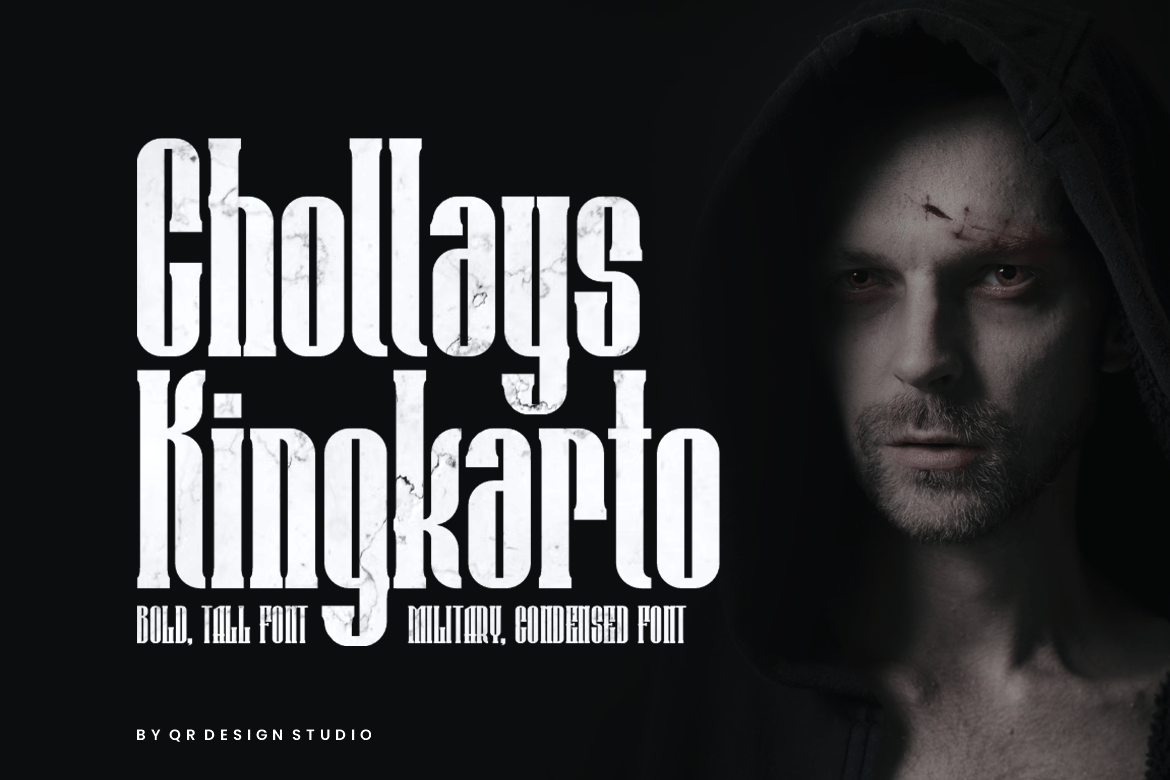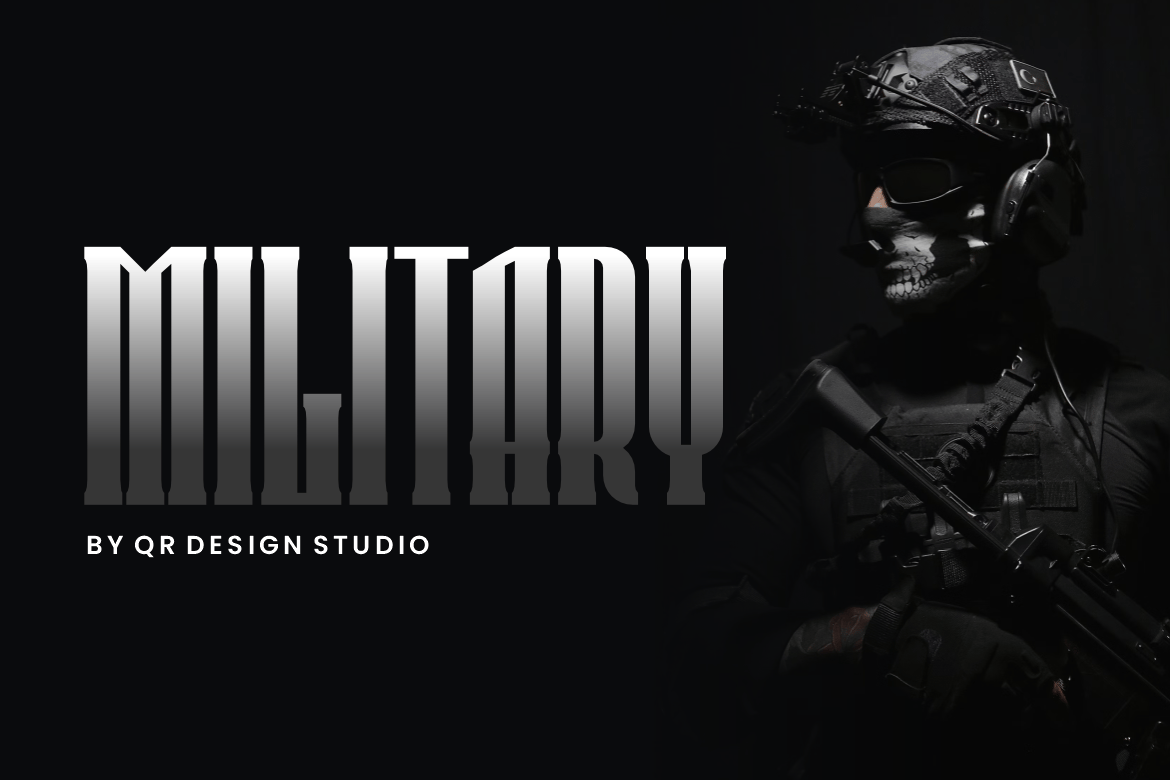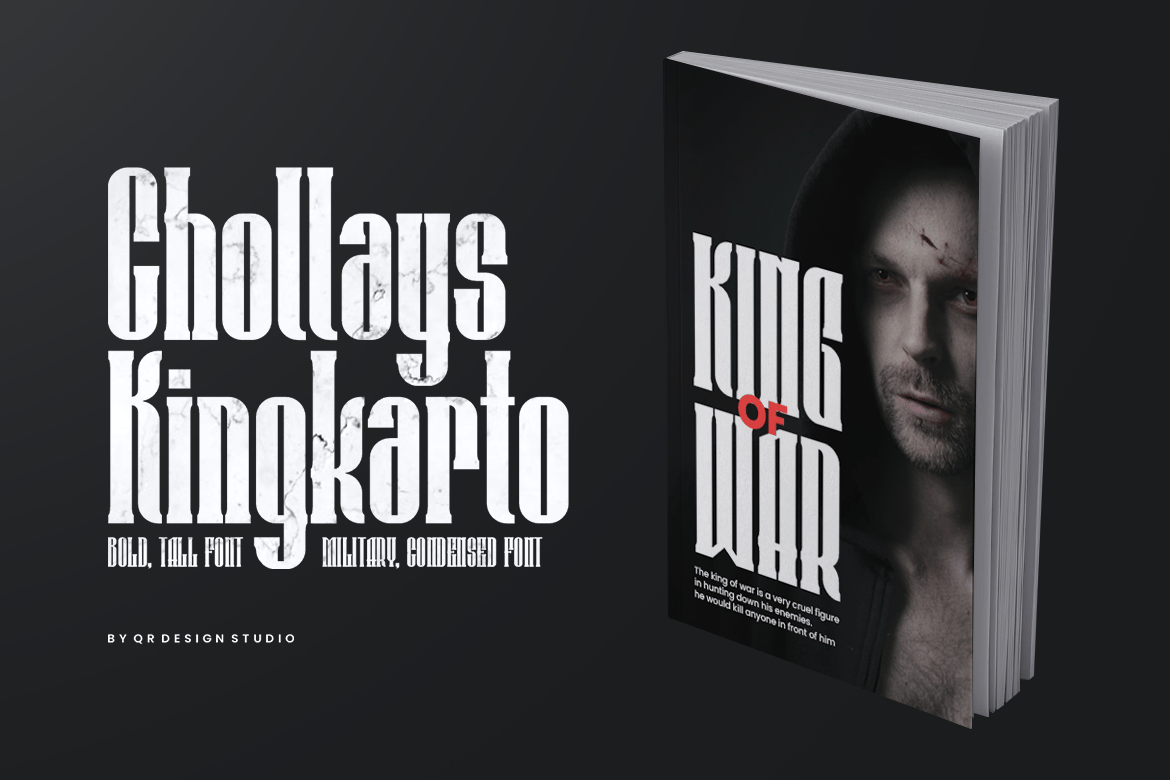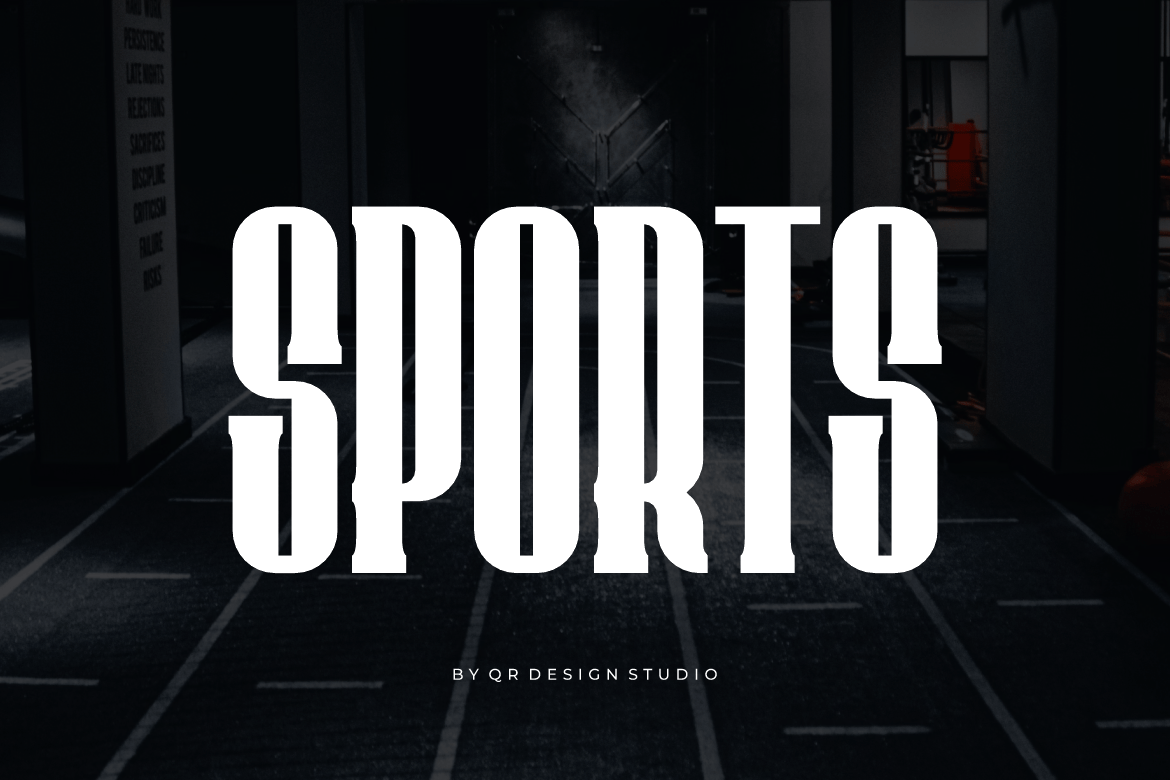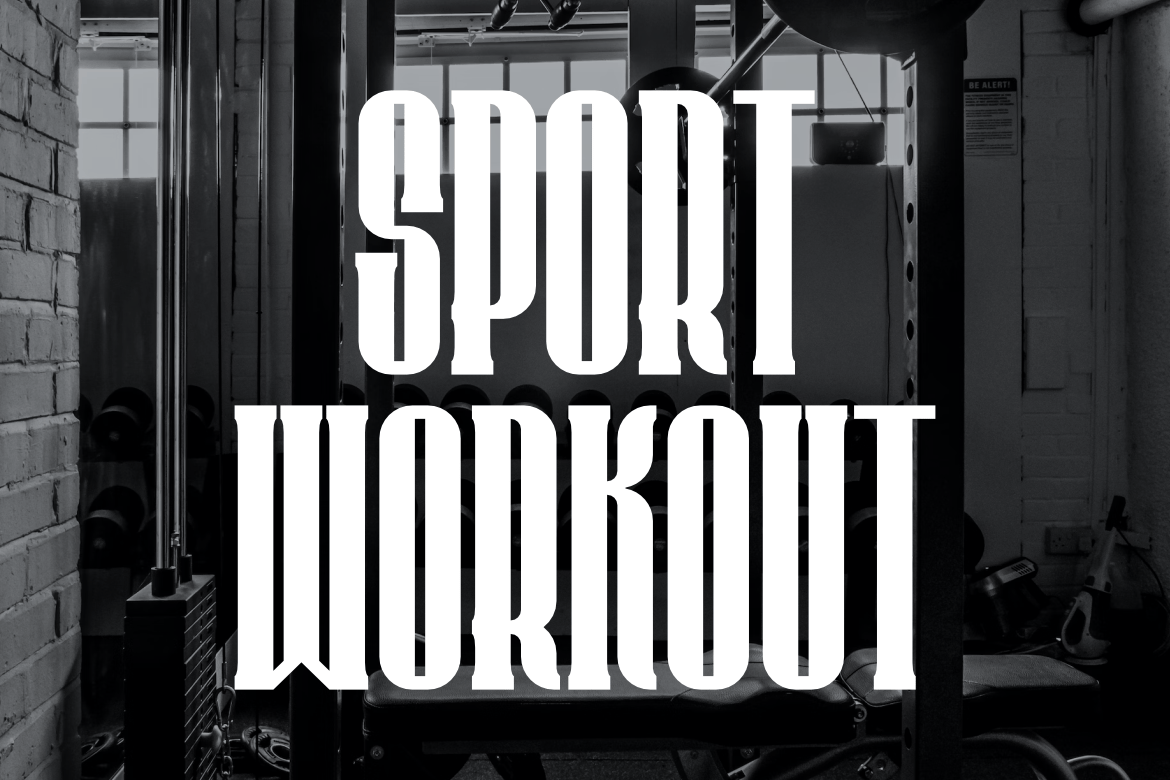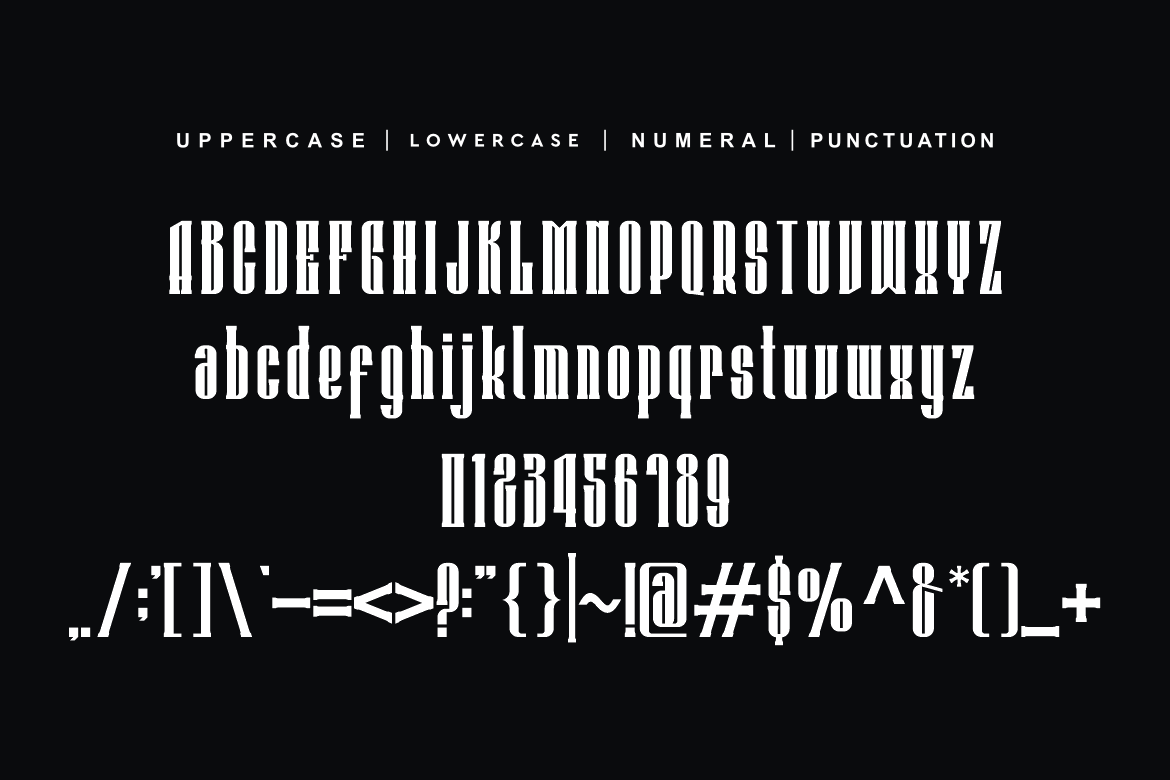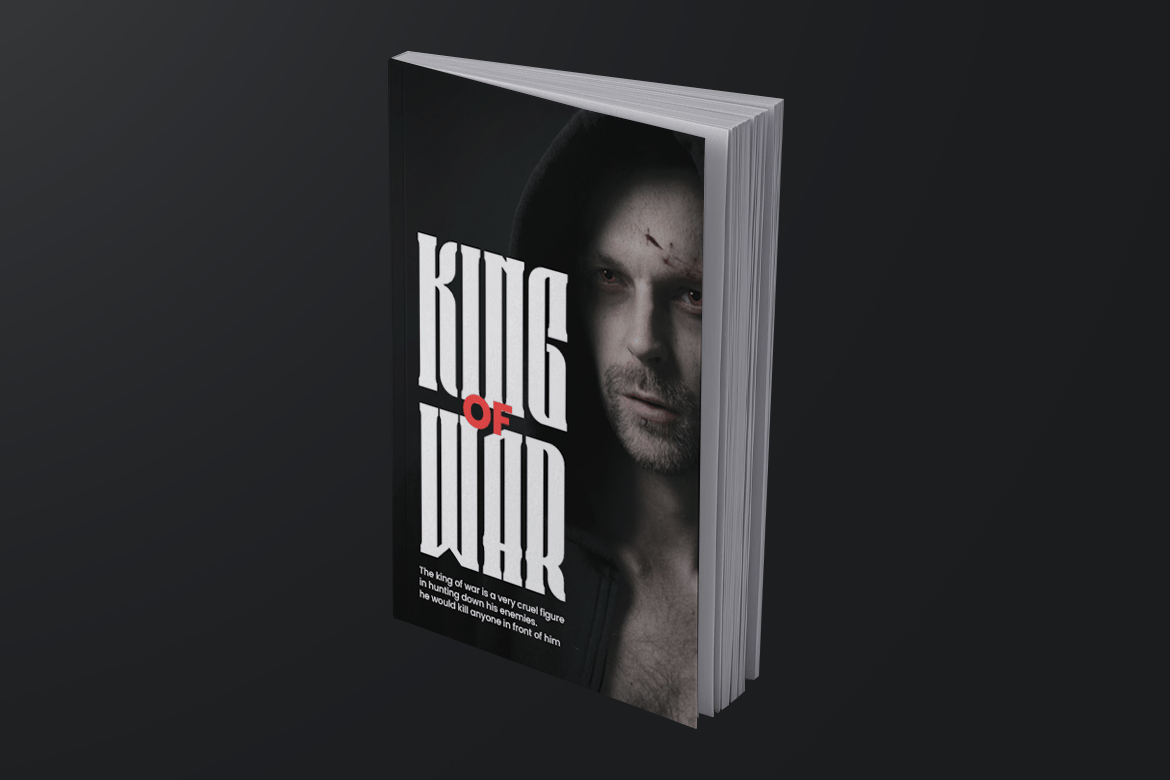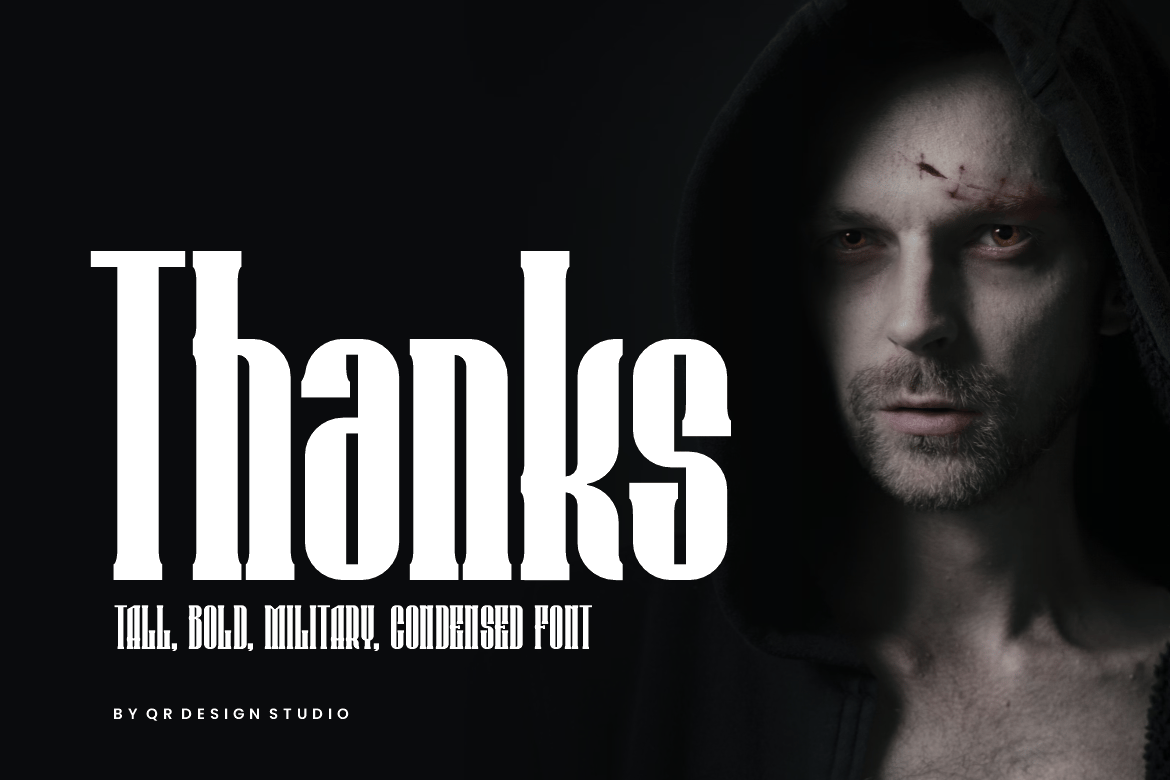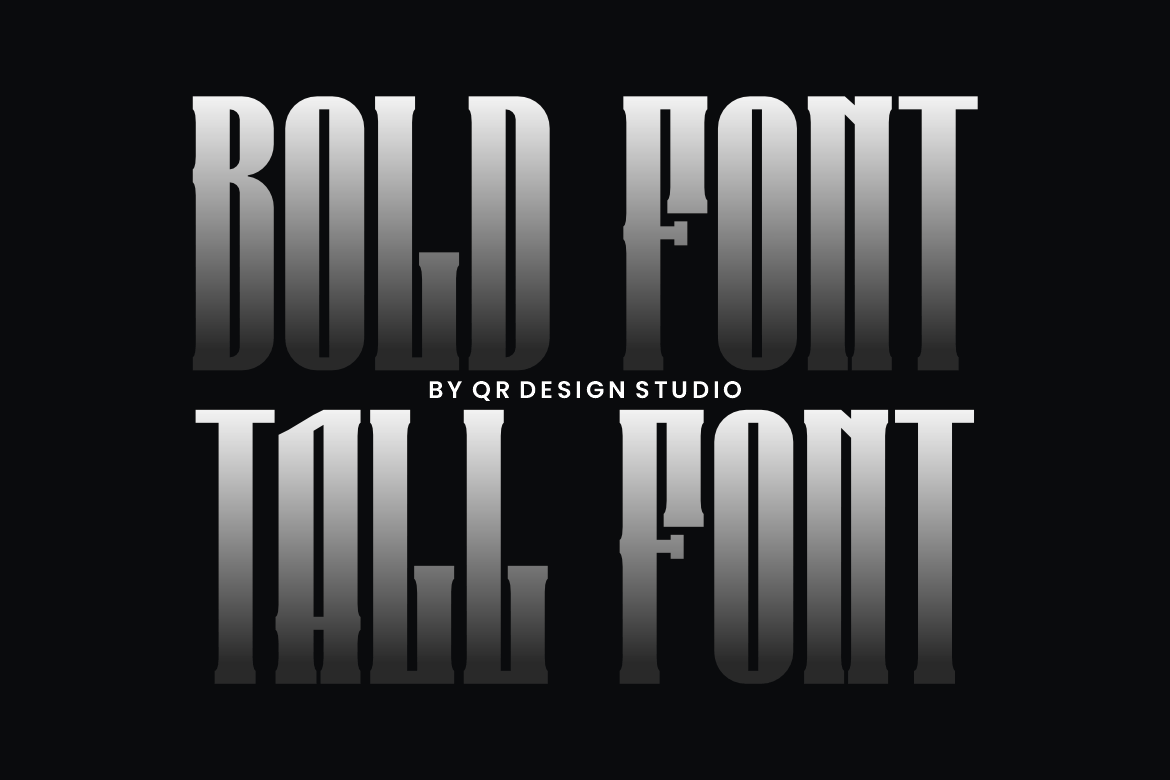
Chollays Kingkarto – Tall & Military Font
Chollays Kingkarto – Tall & Military Font is a bold and authentic display font.
The font is suitable for any branding project like poster, logo, sport, and many more.
Outstanding in a wide range of contexts.